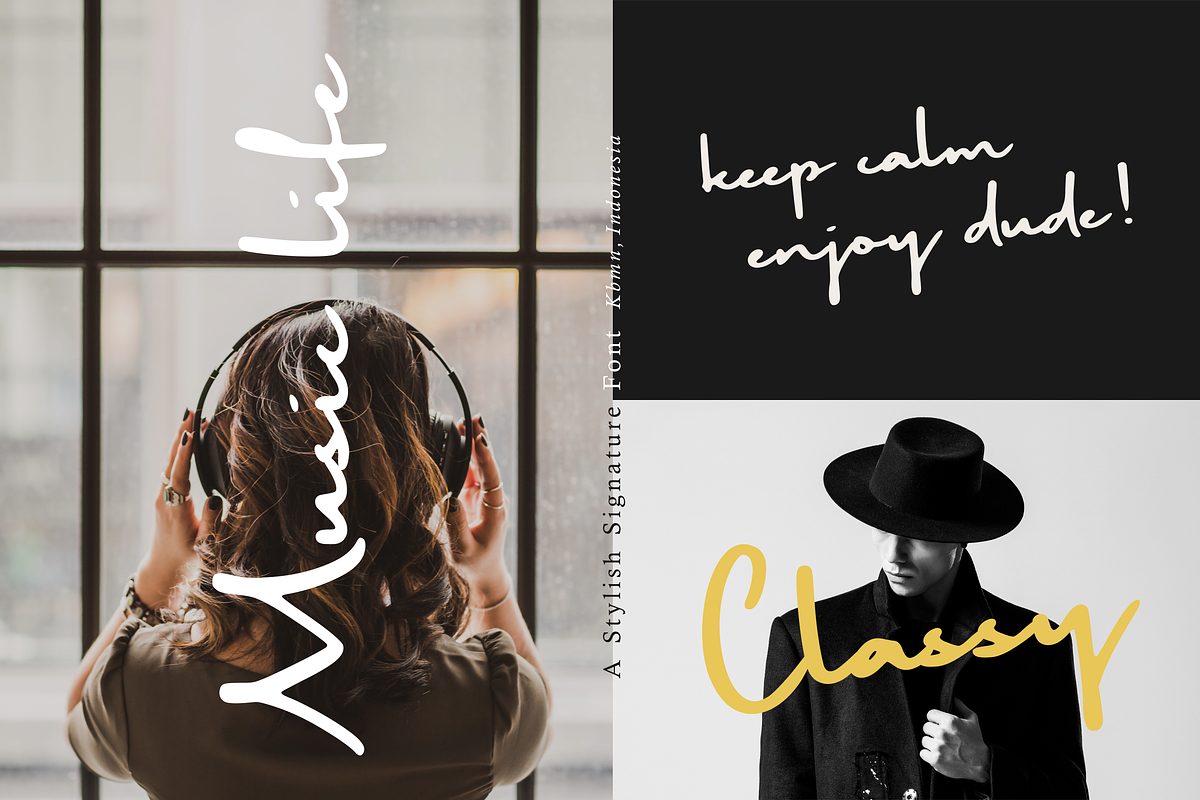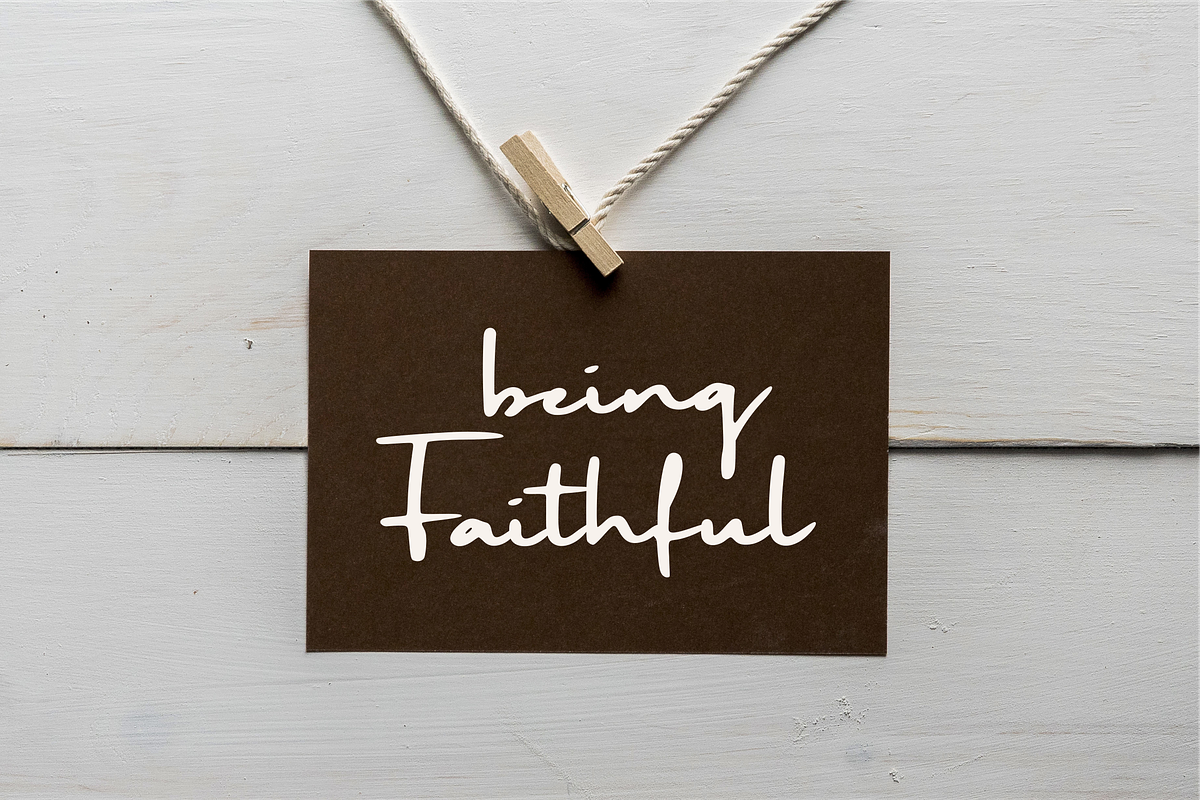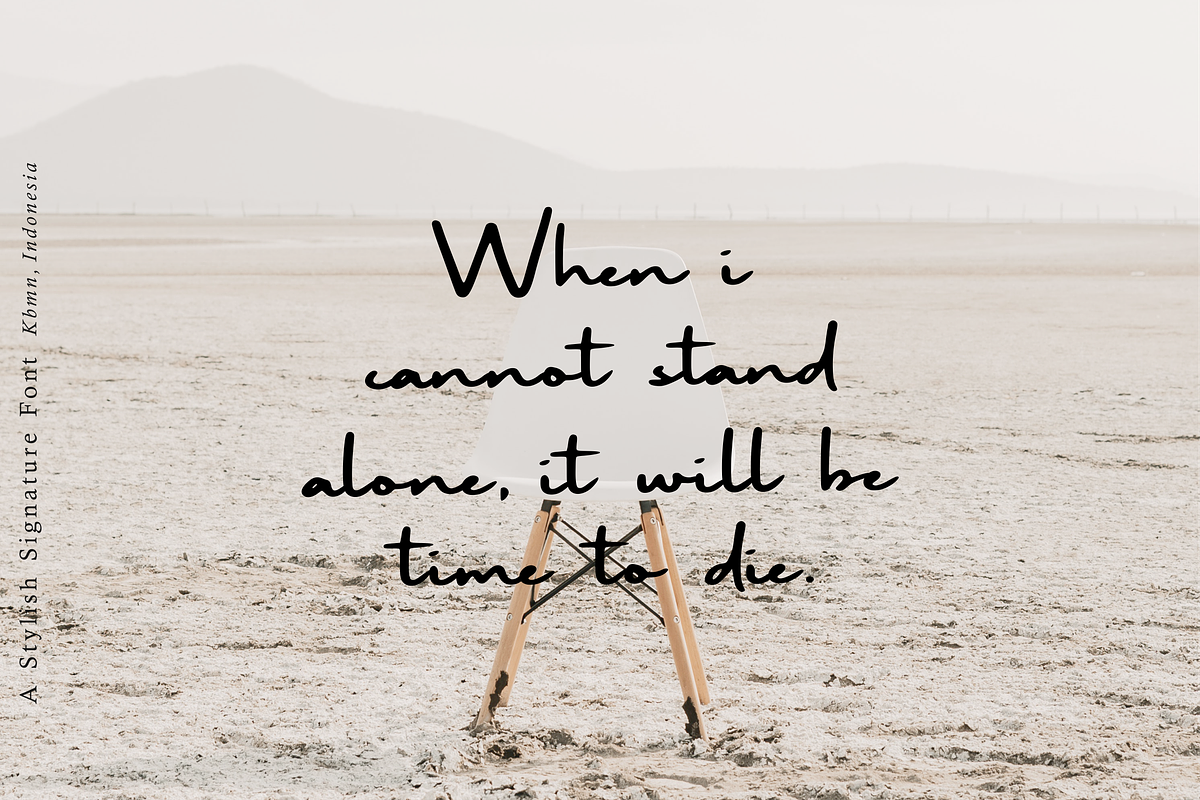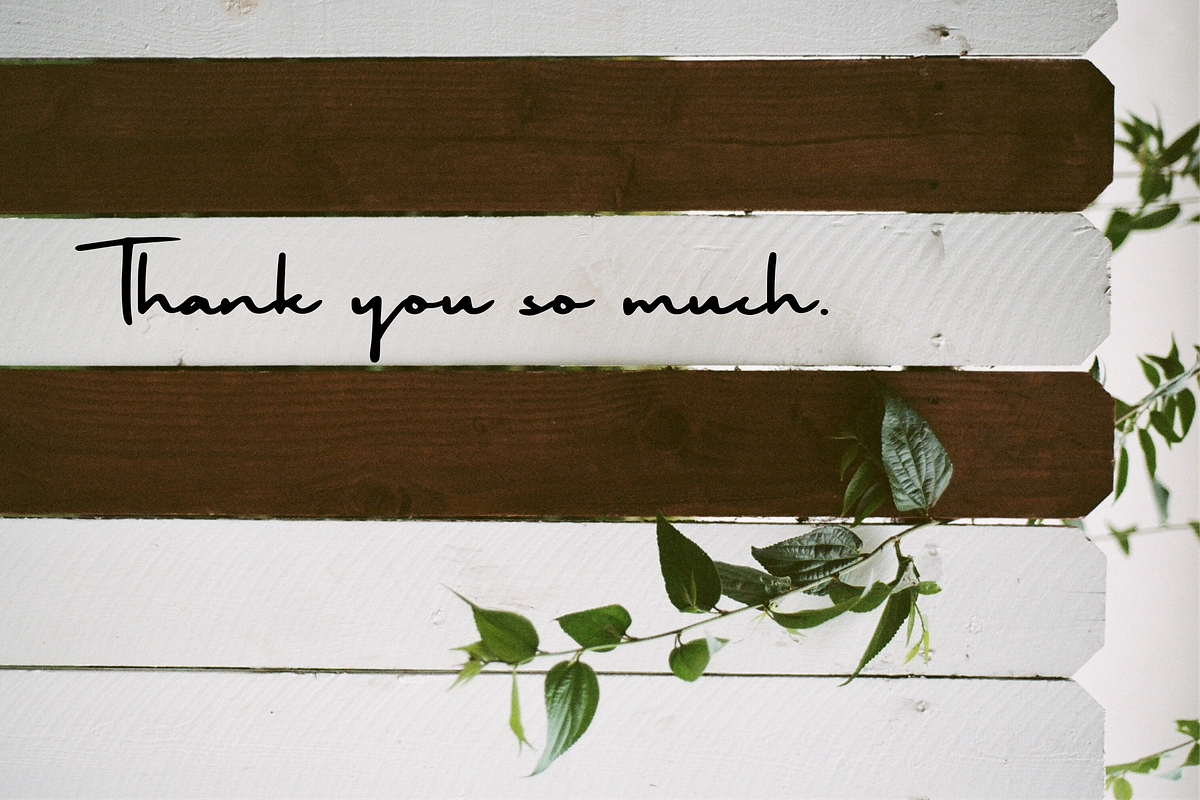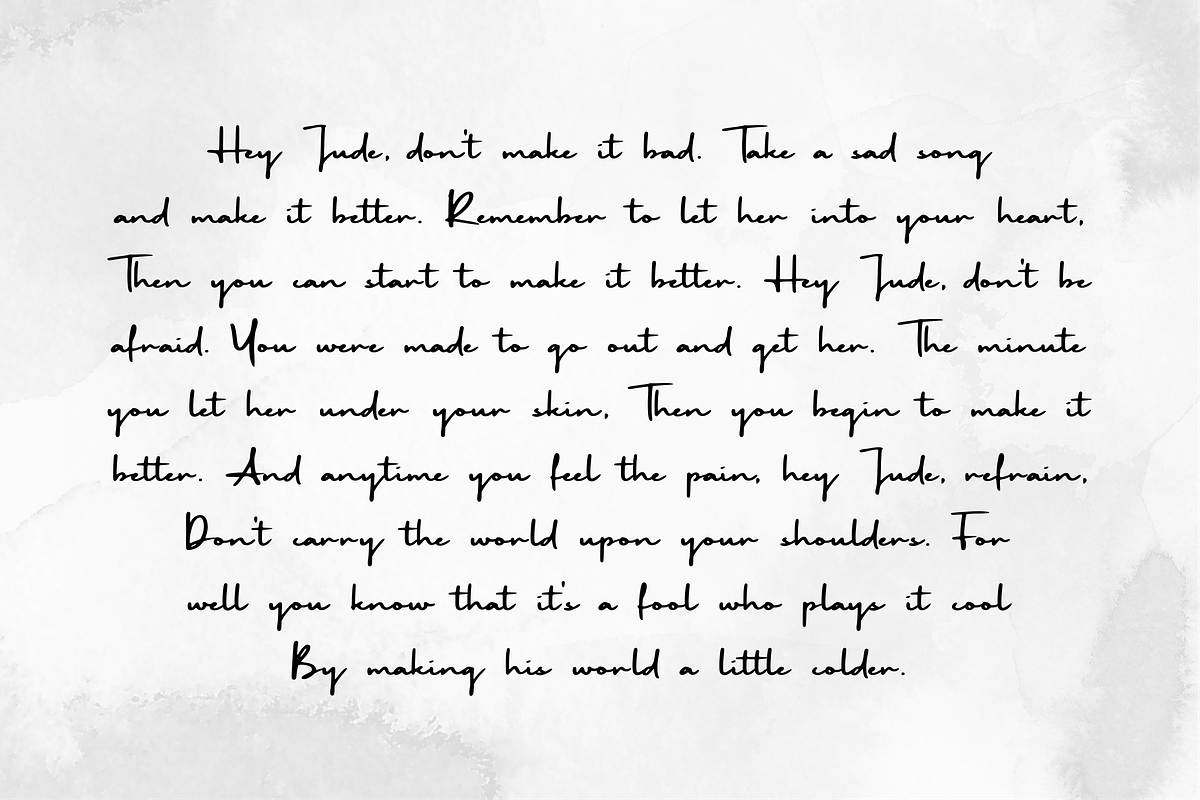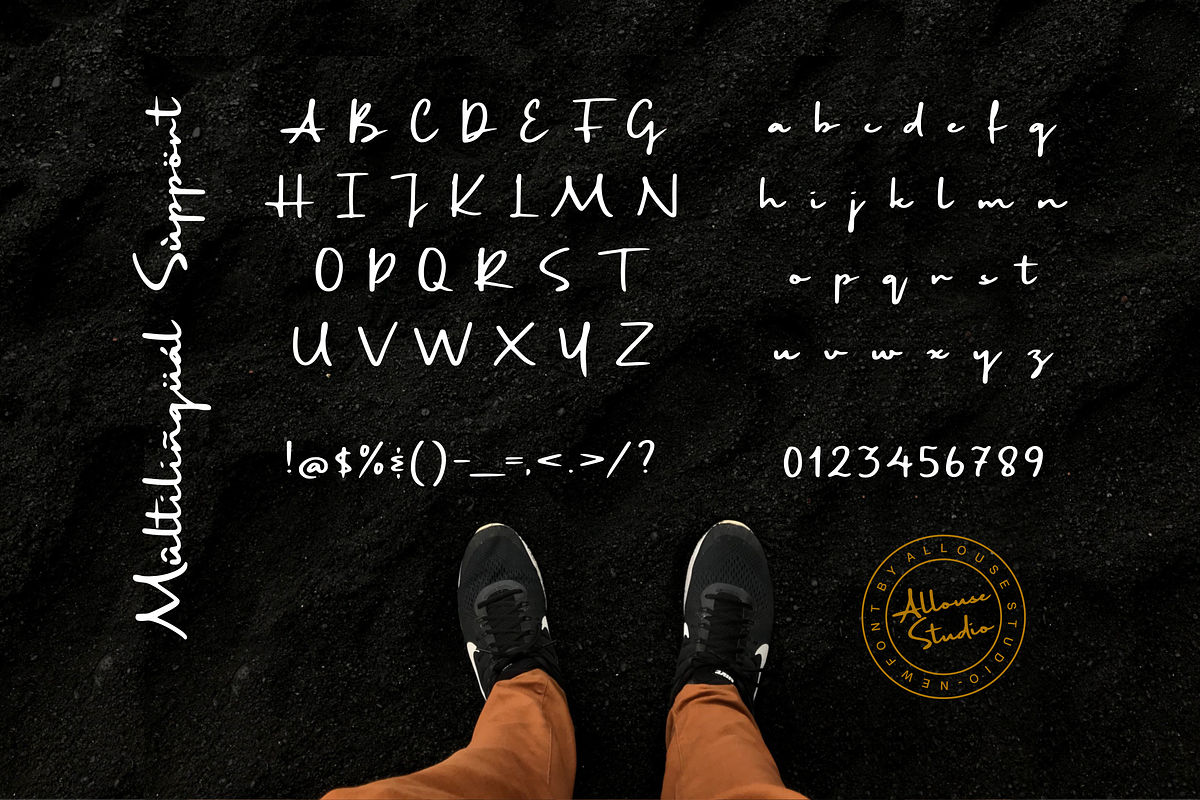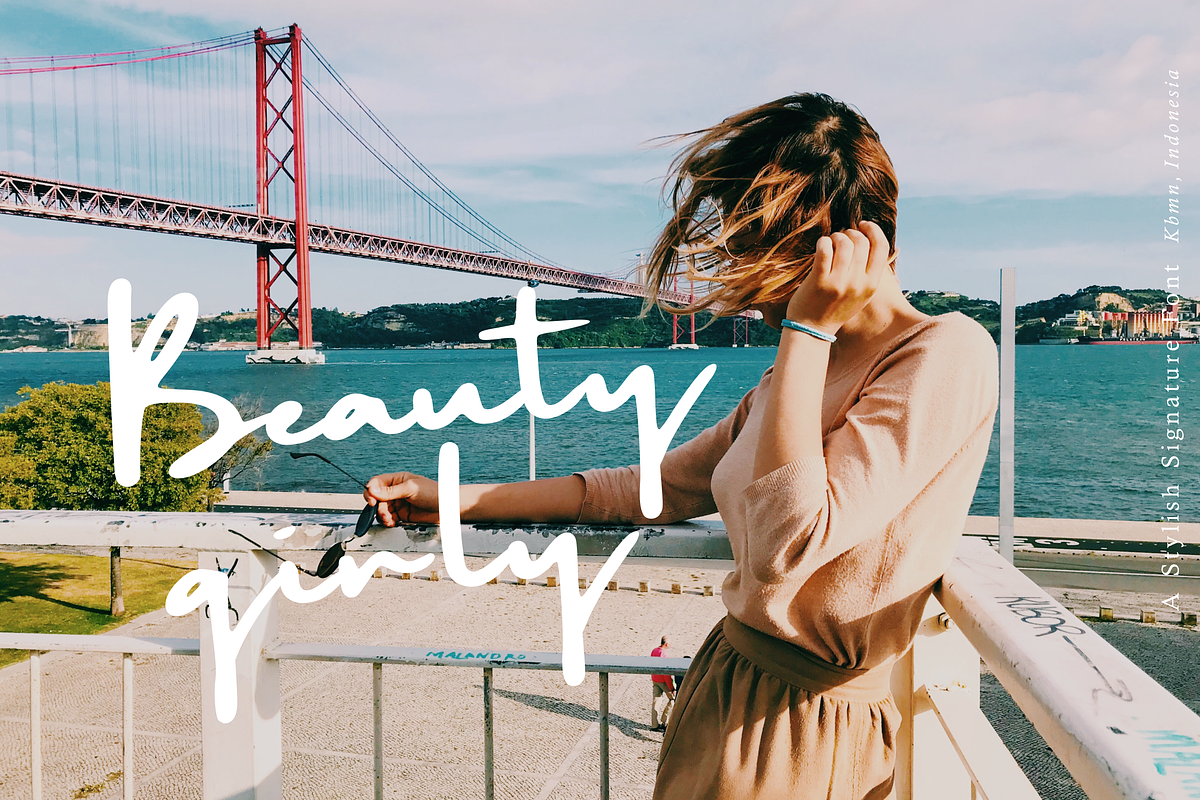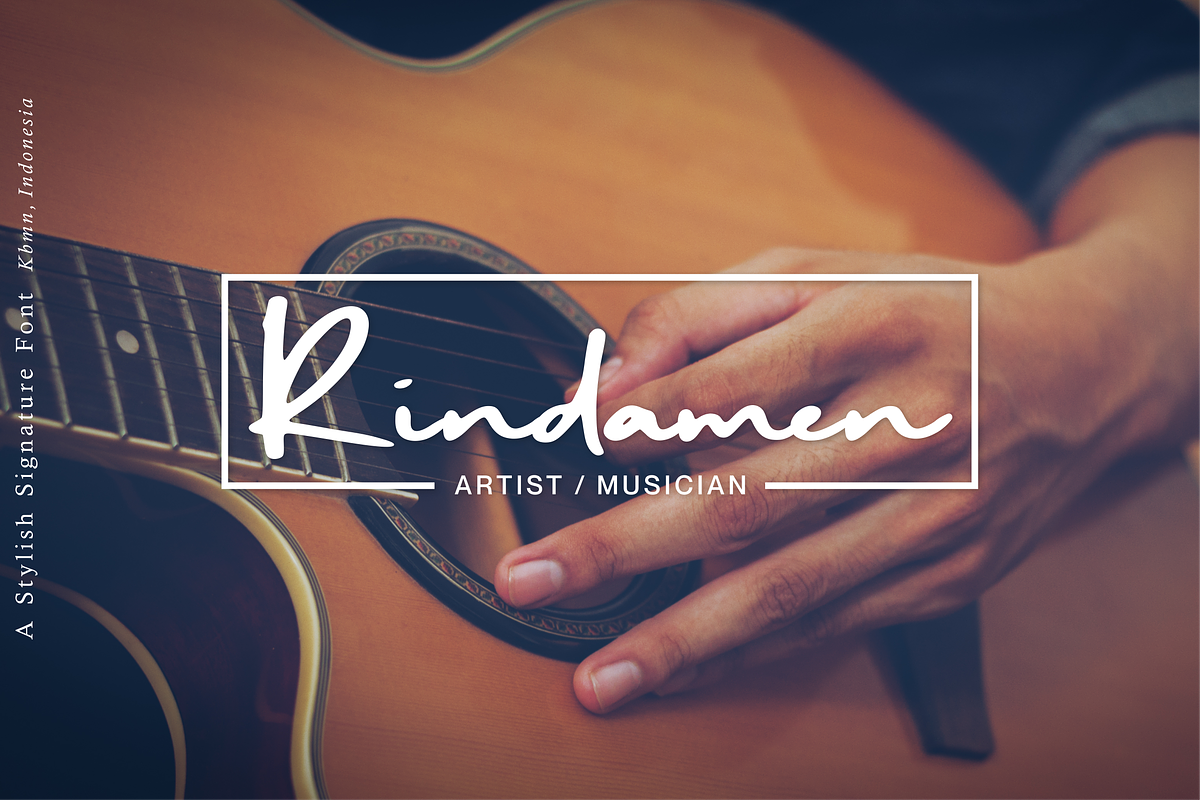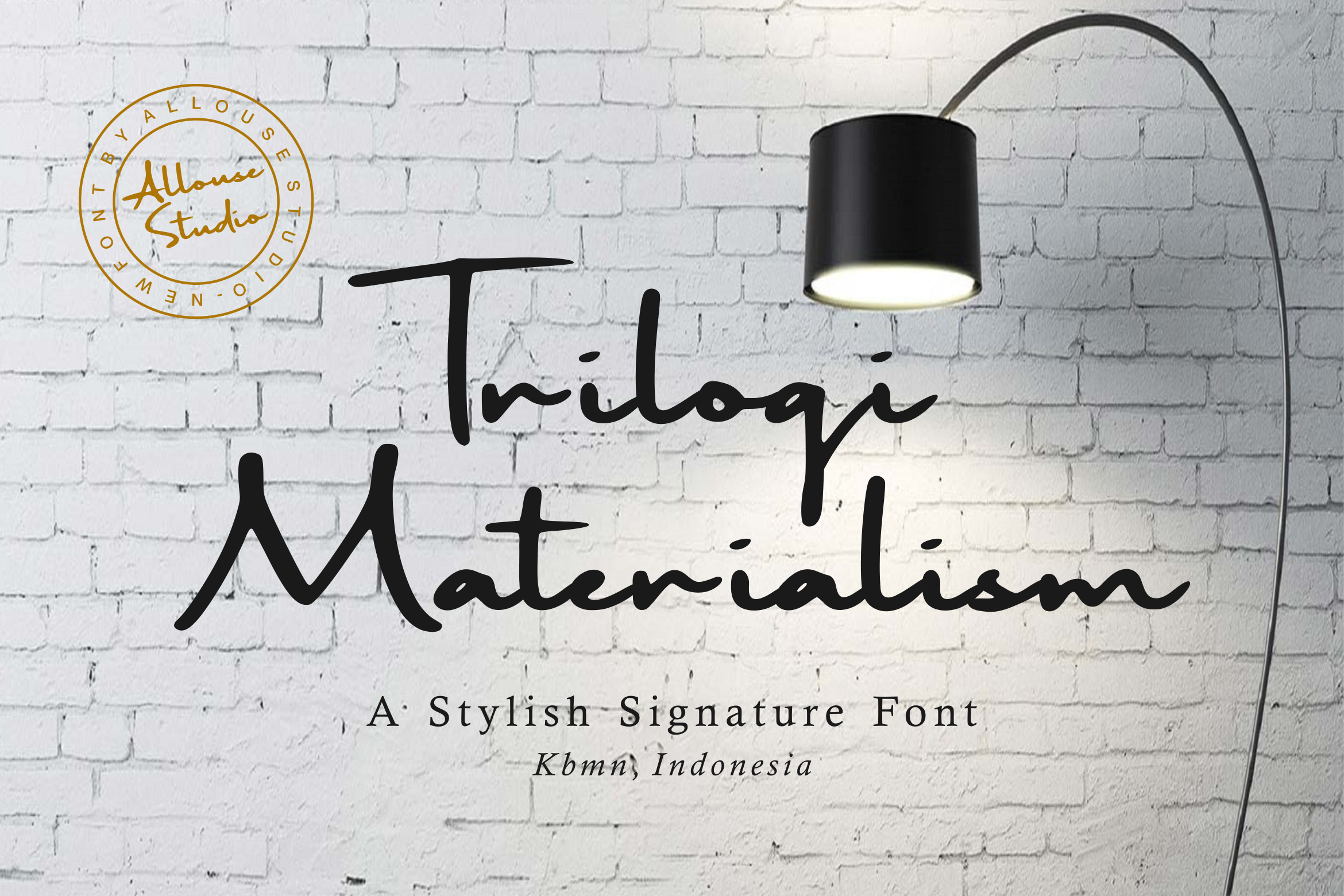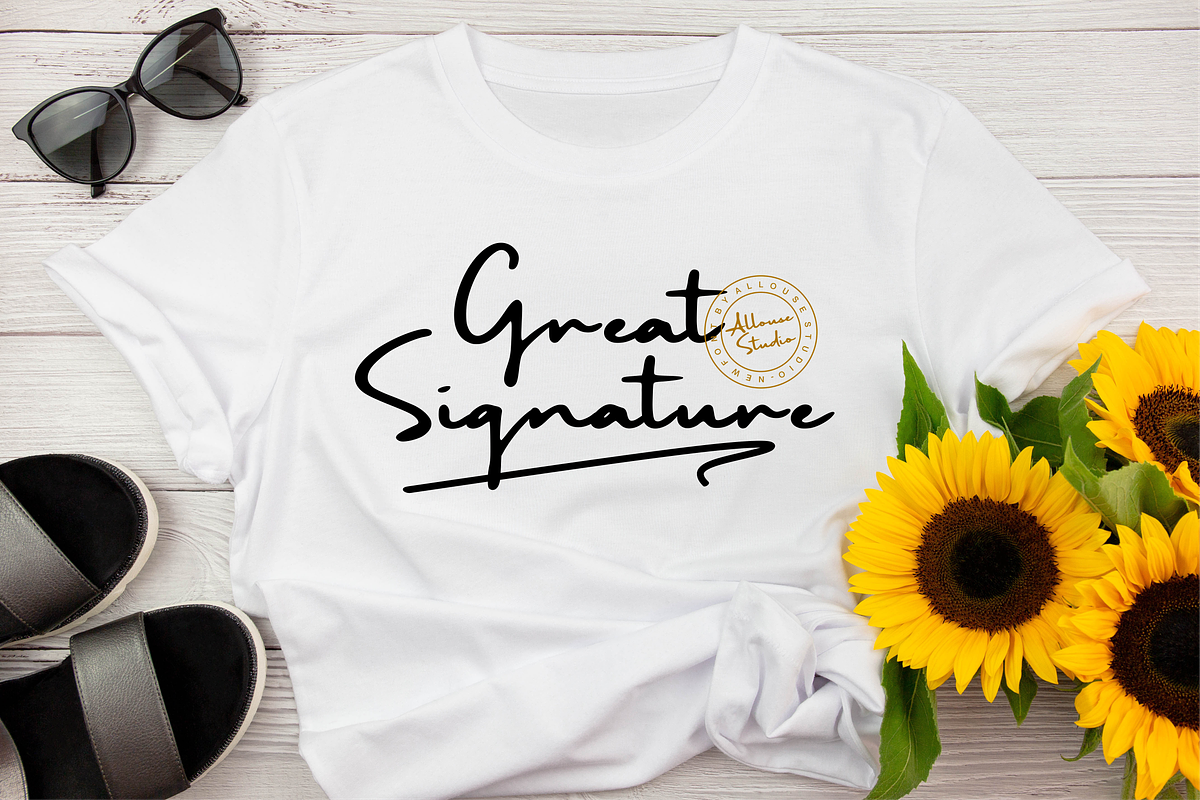
Trilogi Materialism Signature Font
Proudly Presenting, Trilogi Materialism A Stylish Signature Font.
Trilogi Materialism is perfect for any titles, logo, product packaging, branding project, megazine, social media, wedding, or just used to express words above the background.
Trilogi Materialism also come with Multi-Lingual Support.